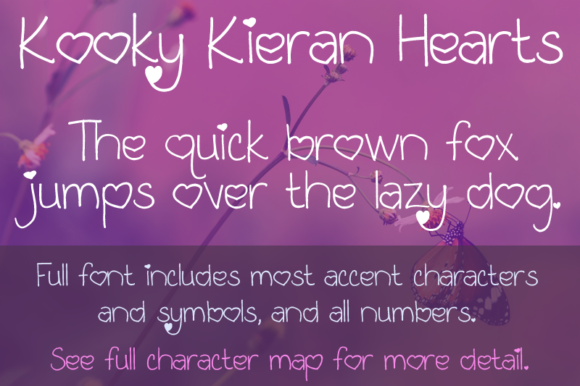
Kooky Kieran Font
db-ku.com - Script & Handwritten -- Kooky Kieran is a handwriting font that was drawn out by my (then) teenage little sister somewhere around the year 2000. This download comes with two separate fonts: Kieran’s “plain” handwriting font, plus an alternate version with heart-shaped letters.